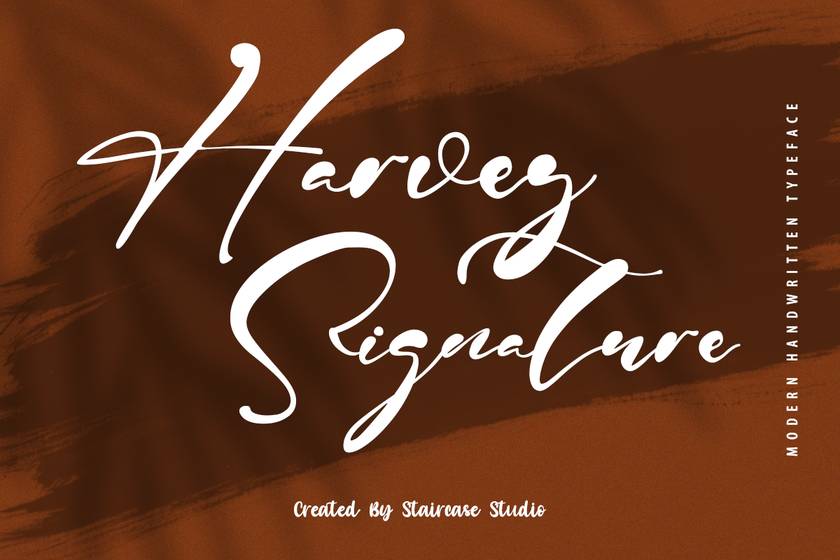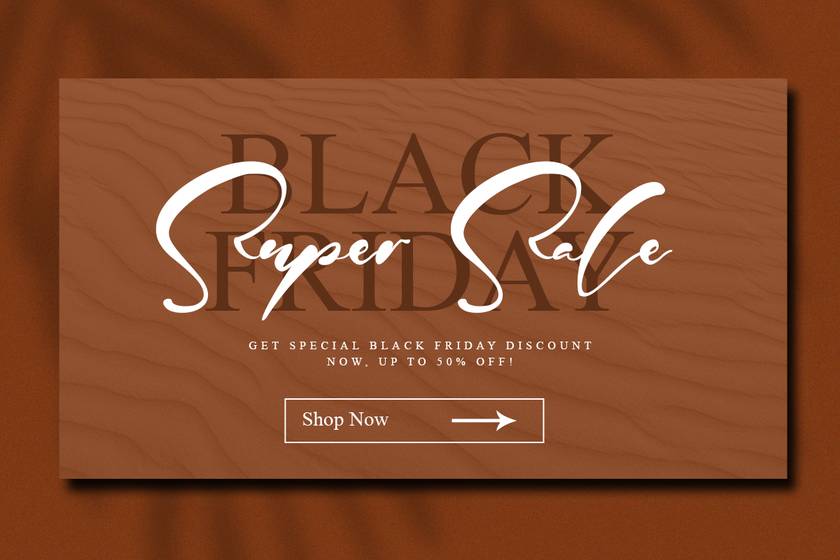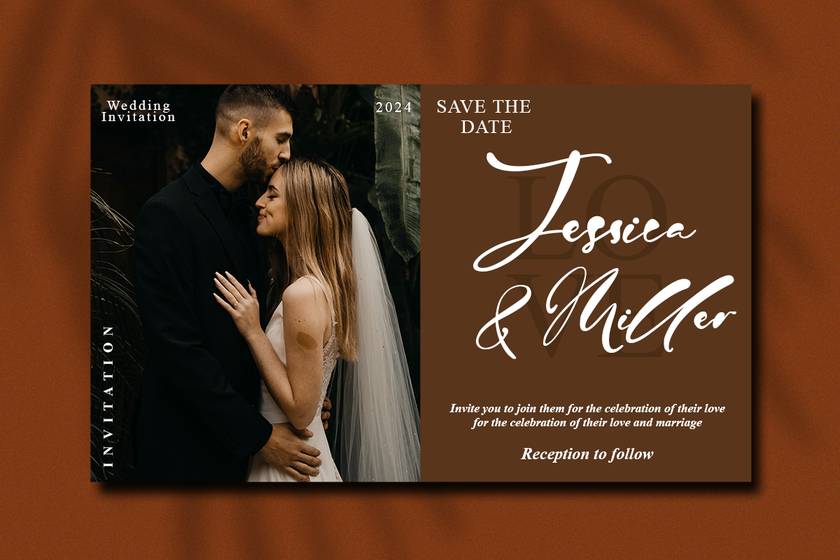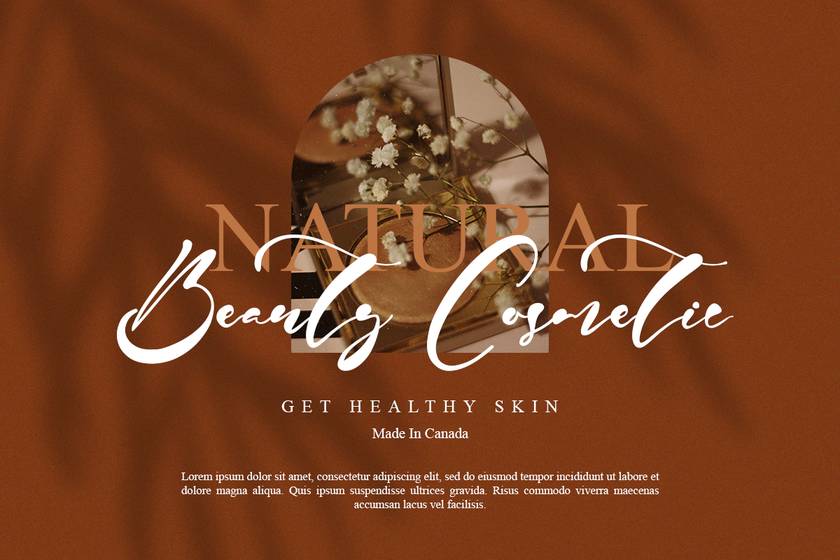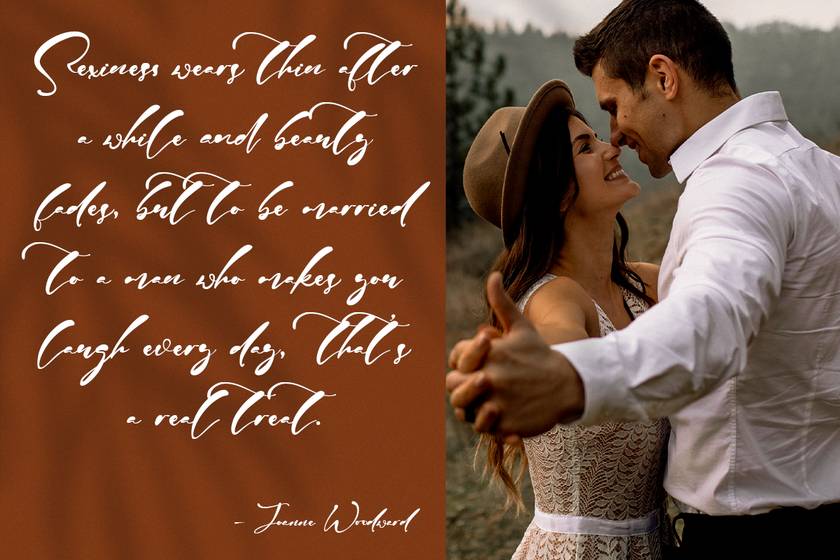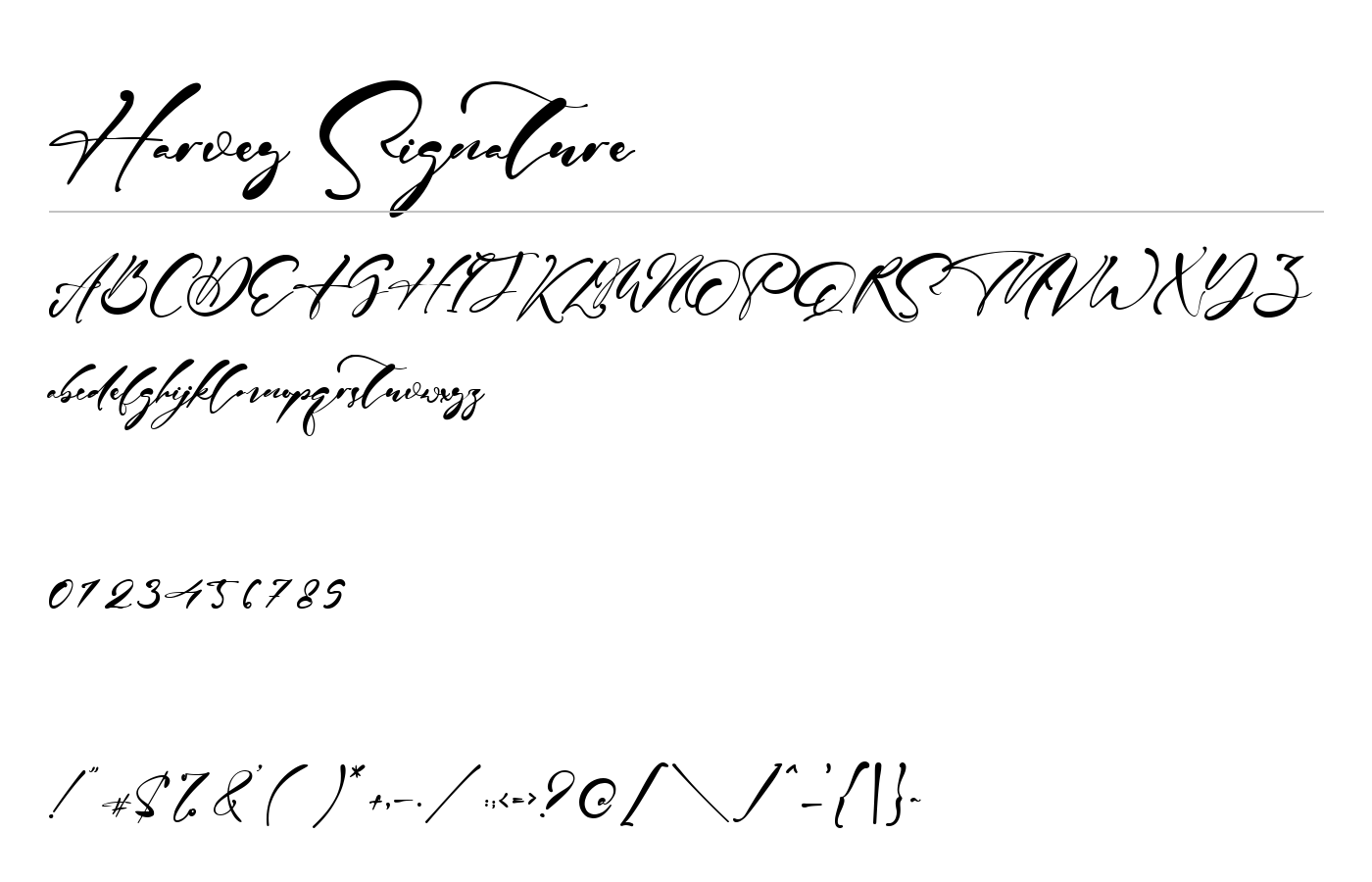
Harvey Signature Font is an elegant, flowing script that mimics natural, stylish handwriting with its smooth, high-contrast strokes and graceful swashes. It conveys a sophisticated and personal feel, making it perfect for luxury branding, invitations, and creative logos where a refined, artistic touch is desired. This font works especially well in large sizes for headlines or accents, adding a sense of exclusivity and charm.
Harvey Signature Font
About Harvey Signature Font
| Font family | Harvey Signature Font |
| Release date | 2021-10-12 |
| Designer | Staircase Studio |